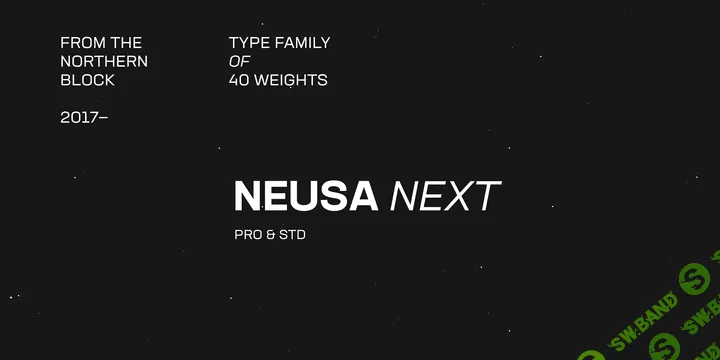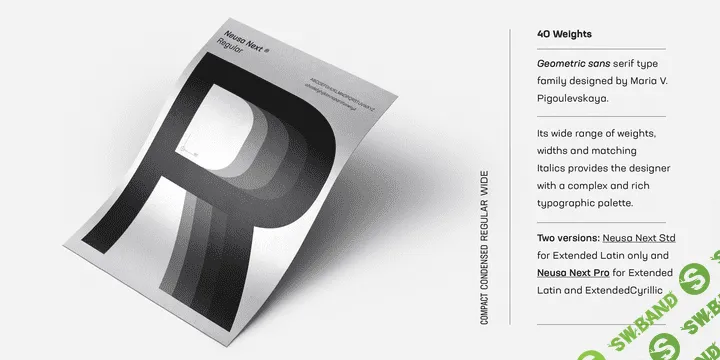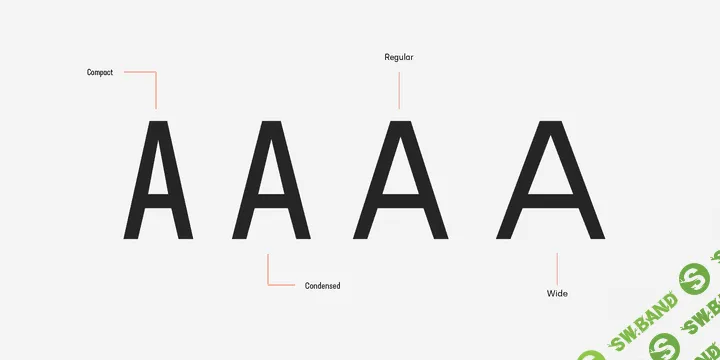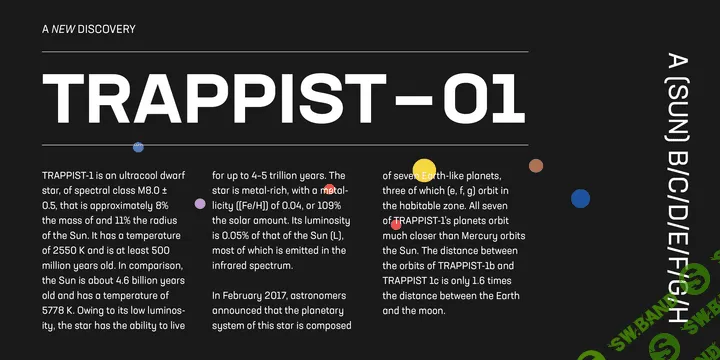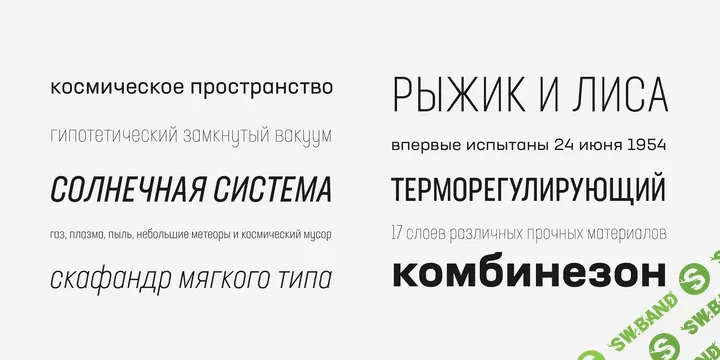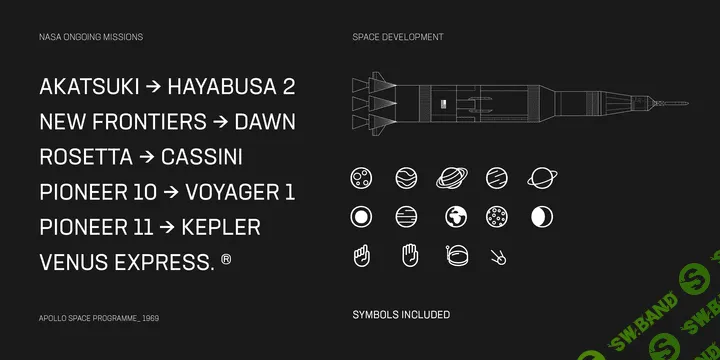
Название: Neusa Next Font
Neusa Next is a geometric sans serif type family designed by Maria V. Pigoulevskaya. Its wide range of weights, widths and matching italics provides the designer with a complex and rich typographic palette.
Designed and released as Neusa in 2012, it was initially conceived as a type family with condensed proportions. Suitable for text, it was equipped with distinctive characteristics that stood out in display settings.
Today Neusa Next builds on the original idea, expanding its character set to extended Cyrillic and introducing three more widths: Compact, Regular and Wide, each one with its own personality. Neusa Next Std supports Latin based languages, while Neusa Next Pro also covers extended Cyrillic.
The design draws inspiration from the early space explorations, including the iconic "Life" magazine coverage of the 1969 Apollo program and especially the works of Swiss design.
The Neusa Next family consists of 20 weights, five per width, with matching italics, for a total of 40 individual styles. OpenType features include localised forms for Bashkir, Bulgarian, Catalan, Chuvash, Dutch, Macedonian, Moldovan, Romanian and Serbian, as well as inferiors, superiors, fractions, case sensitive punctuation and a special stylistic set featuring space themed icons. Language support includes Latin and Cyrillic scripts, covering most Western and Central European Latin-based languages.